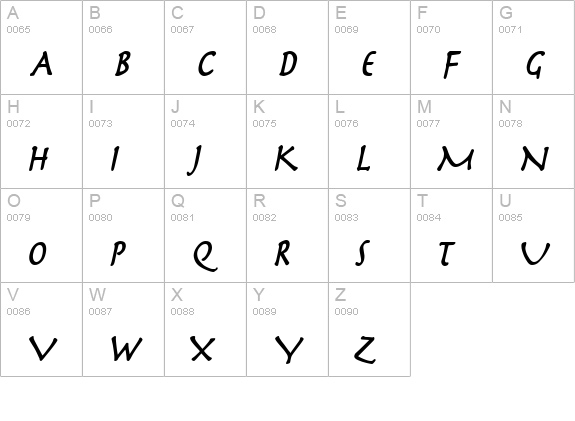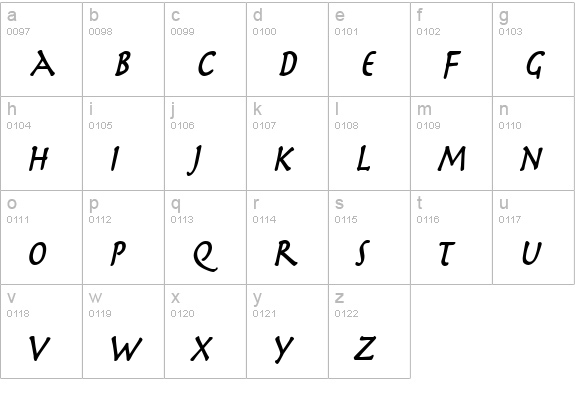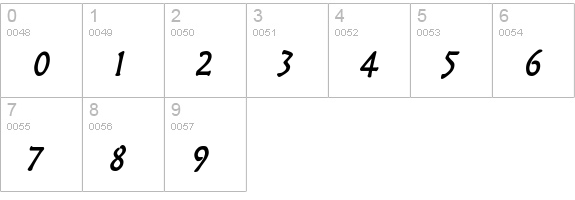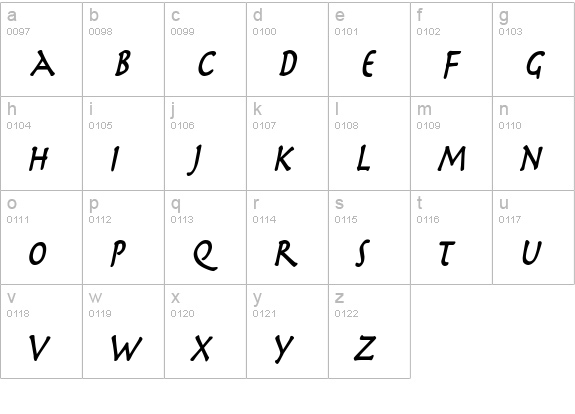
Mythology Condensed BoldItalic is a distinctive, condensed-width variant in the Mythology typeface family \xE2\x80\x94 well suited to design and typography projects.
Mythology Condensed BoldItalic font is a captivating and powerful typeface that exudes a sense of mystery and grandeur. Its bold and italic combination creates a striking visual impact, making it perfect for adding a touch of drama to any design project. Inspired by ancient myths and legends, this font brings a timeless quality to your text. The Mythology Condensed BoldItalic font is versatile and can be used for a wide range of design applications, from branding to editorial design. Its condensed form allows for efficient use of space without compromising on legibility or style. Whether you're working on a poster, logo, or website, this font will make a bold statement. Best of all, Mythology Condensed BoldItalic font is available for free download at FontsMarket.com. Now you can access this unique and eye-catching typeface without any cost or hassle. Don't miss out on the opportunity to enhance your designs with this stunning font today!